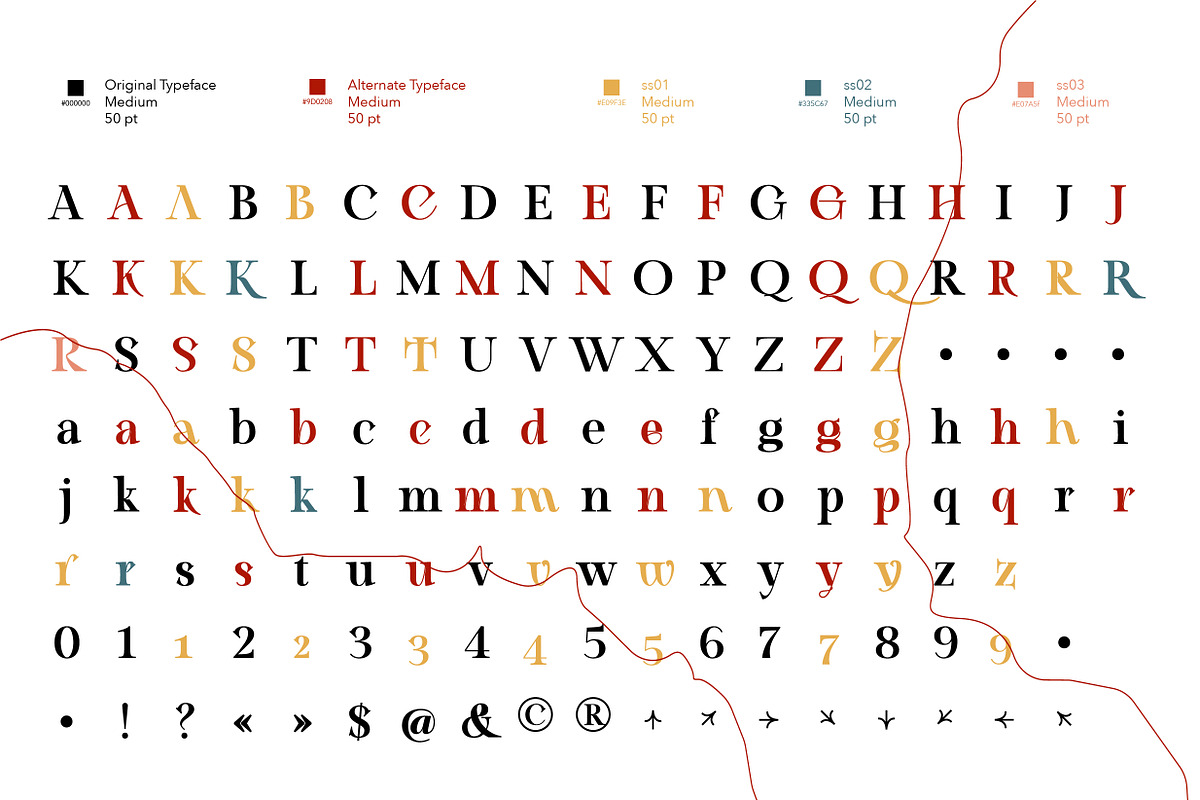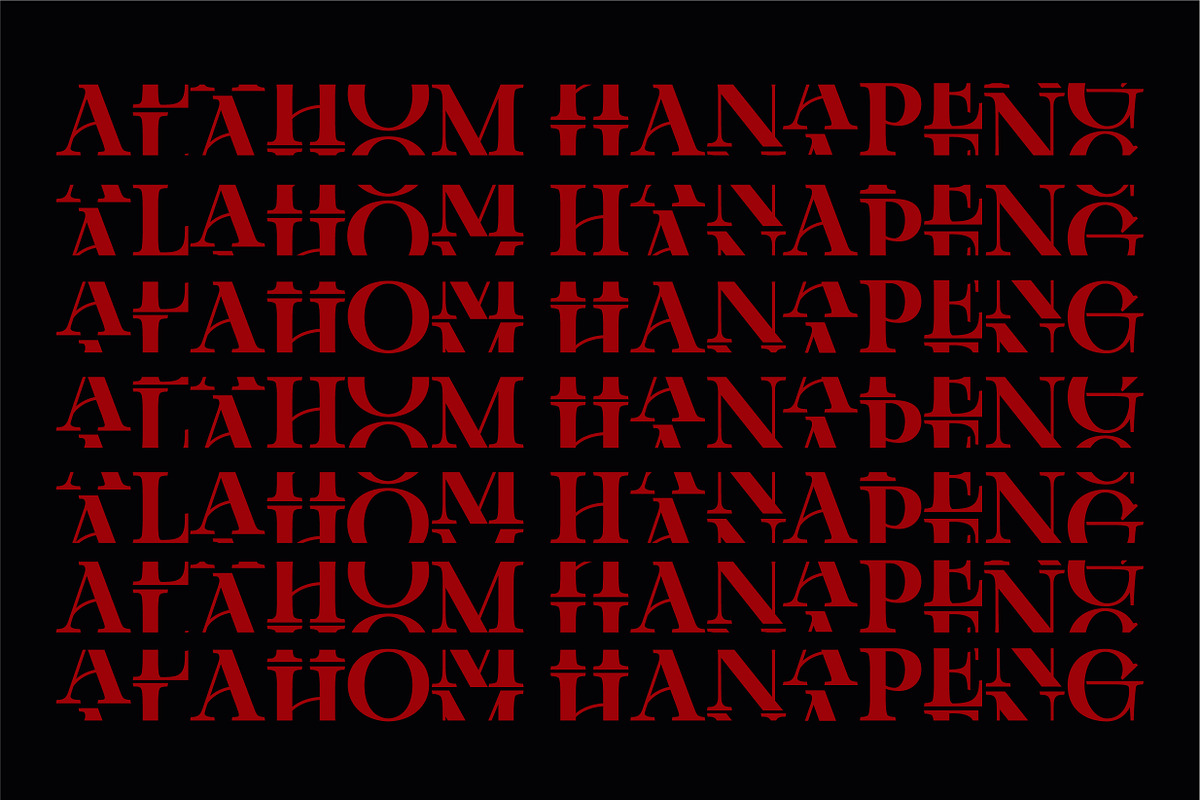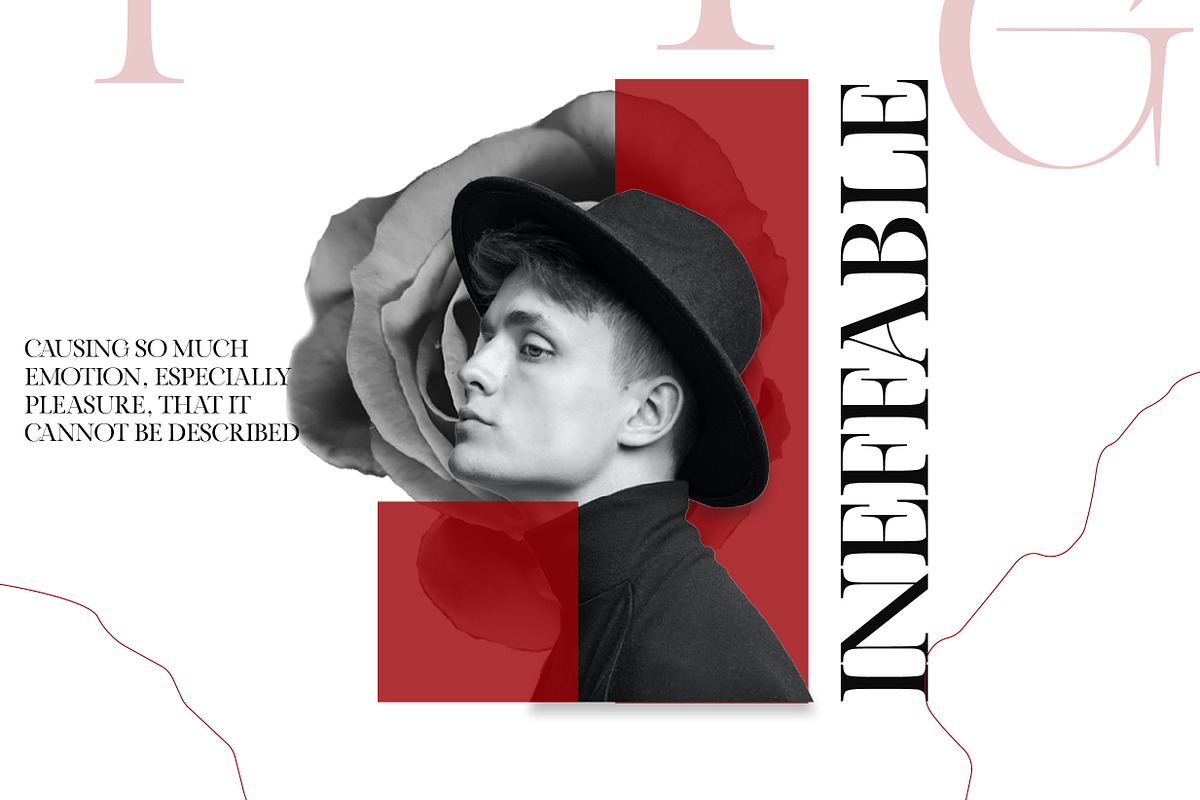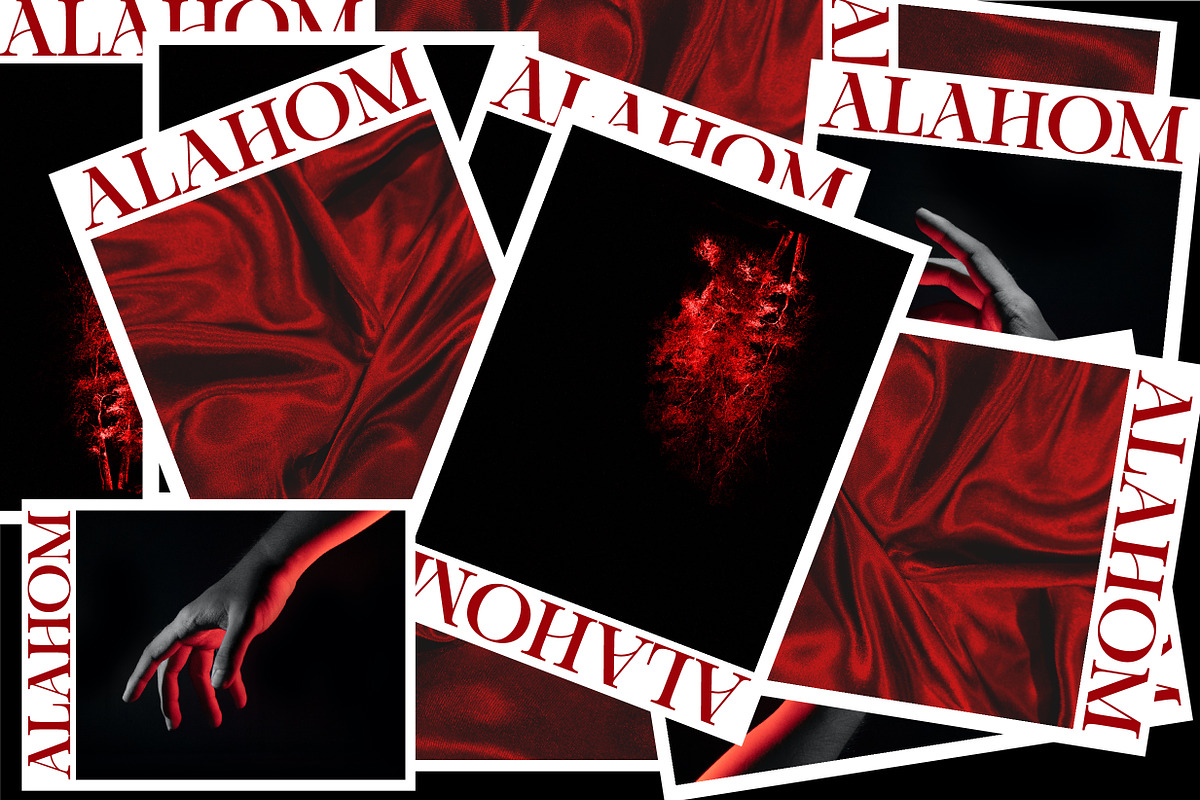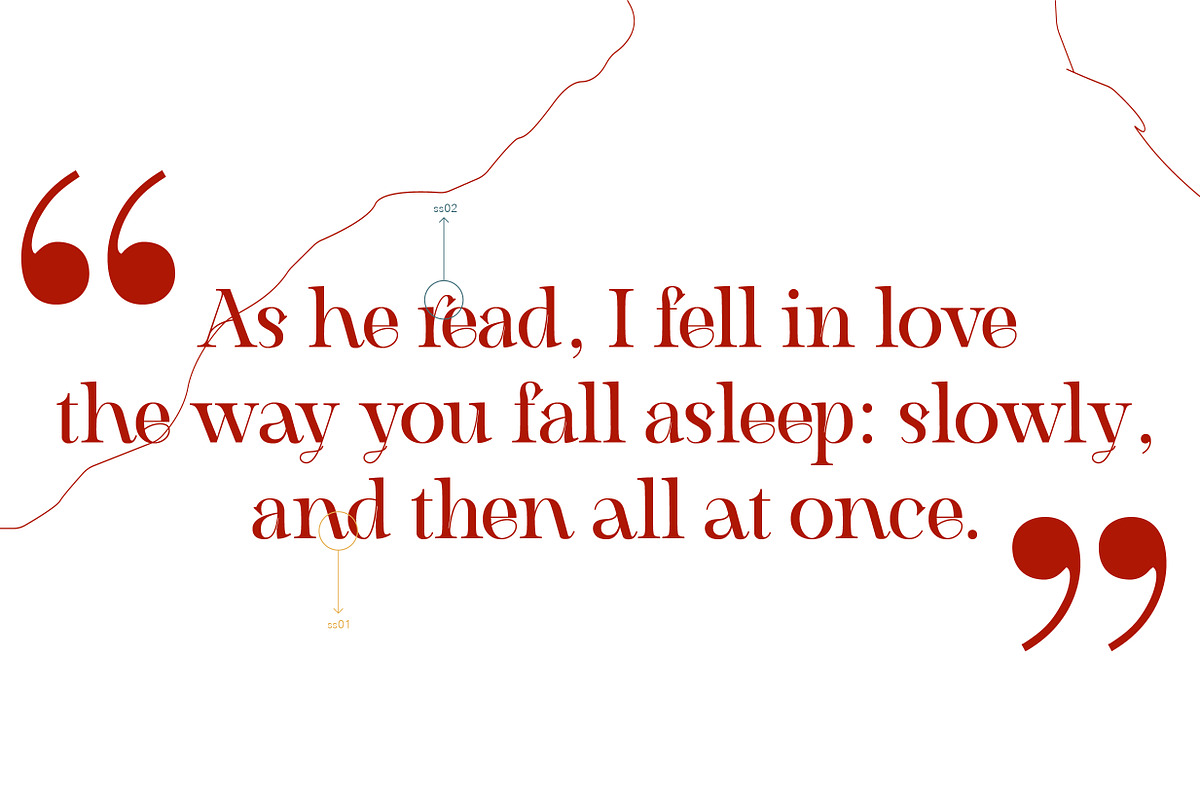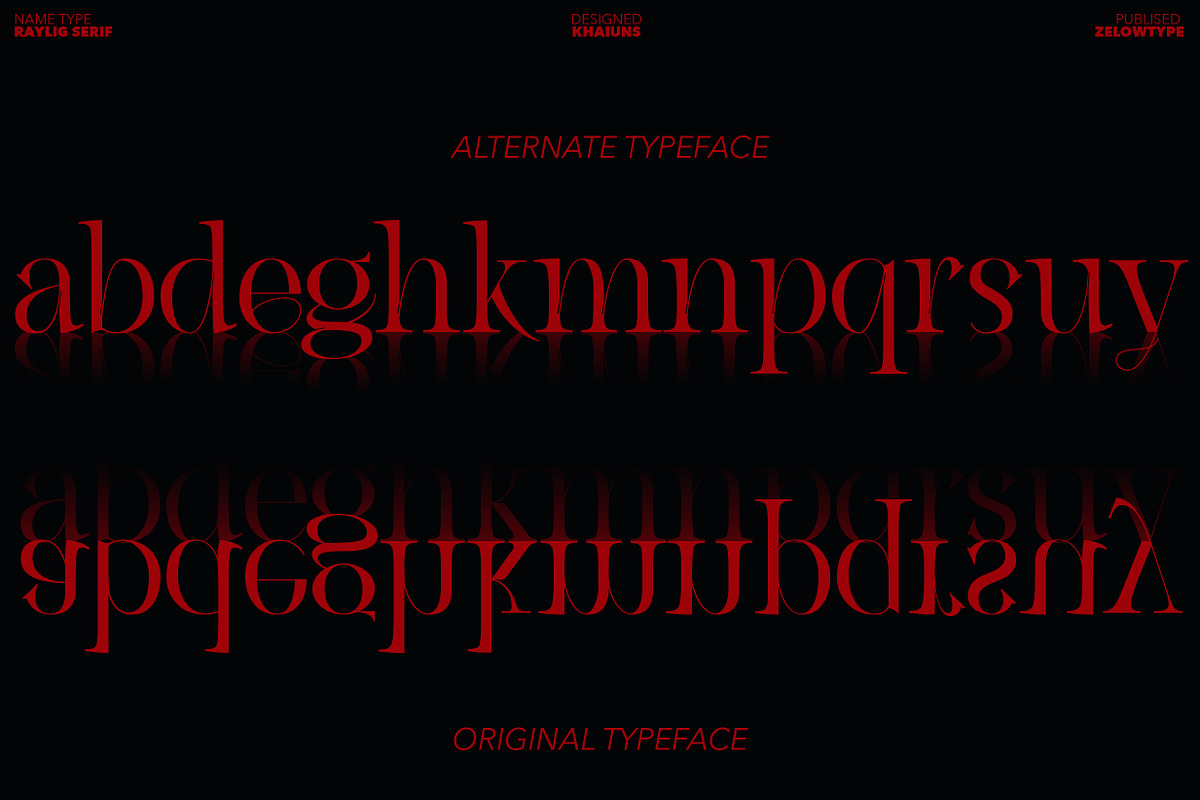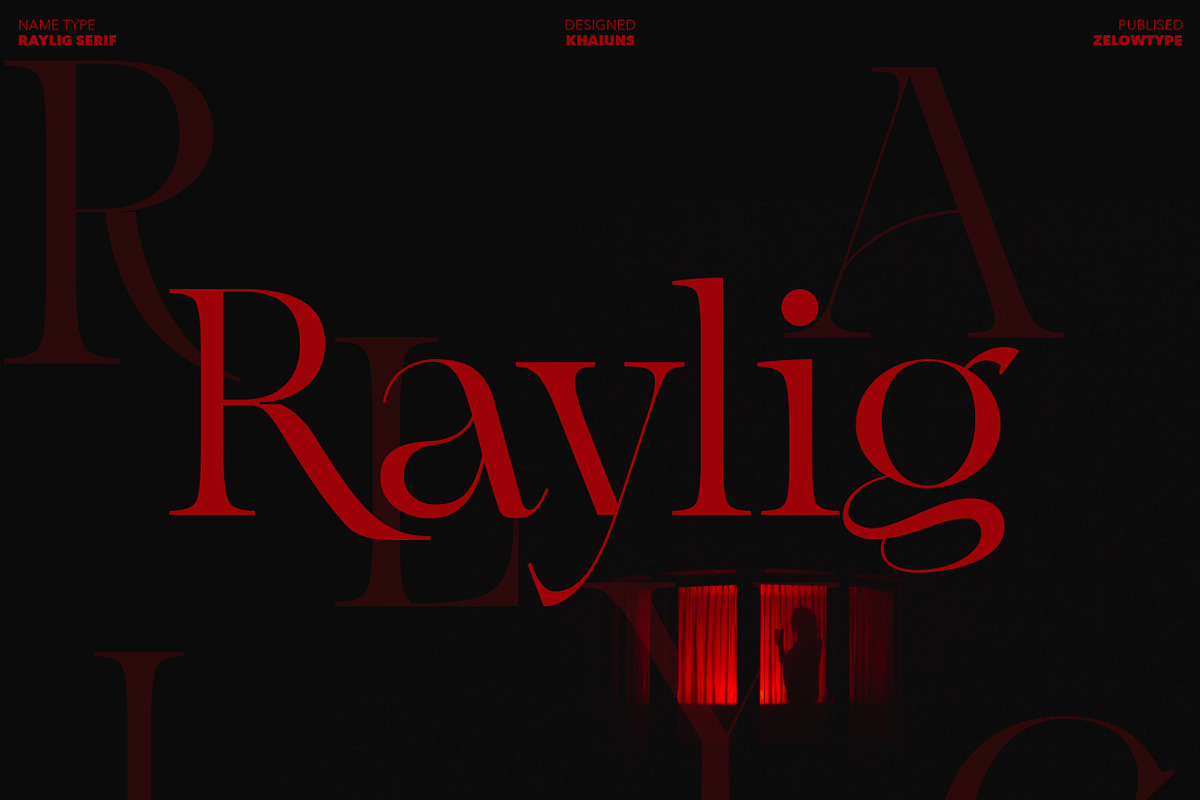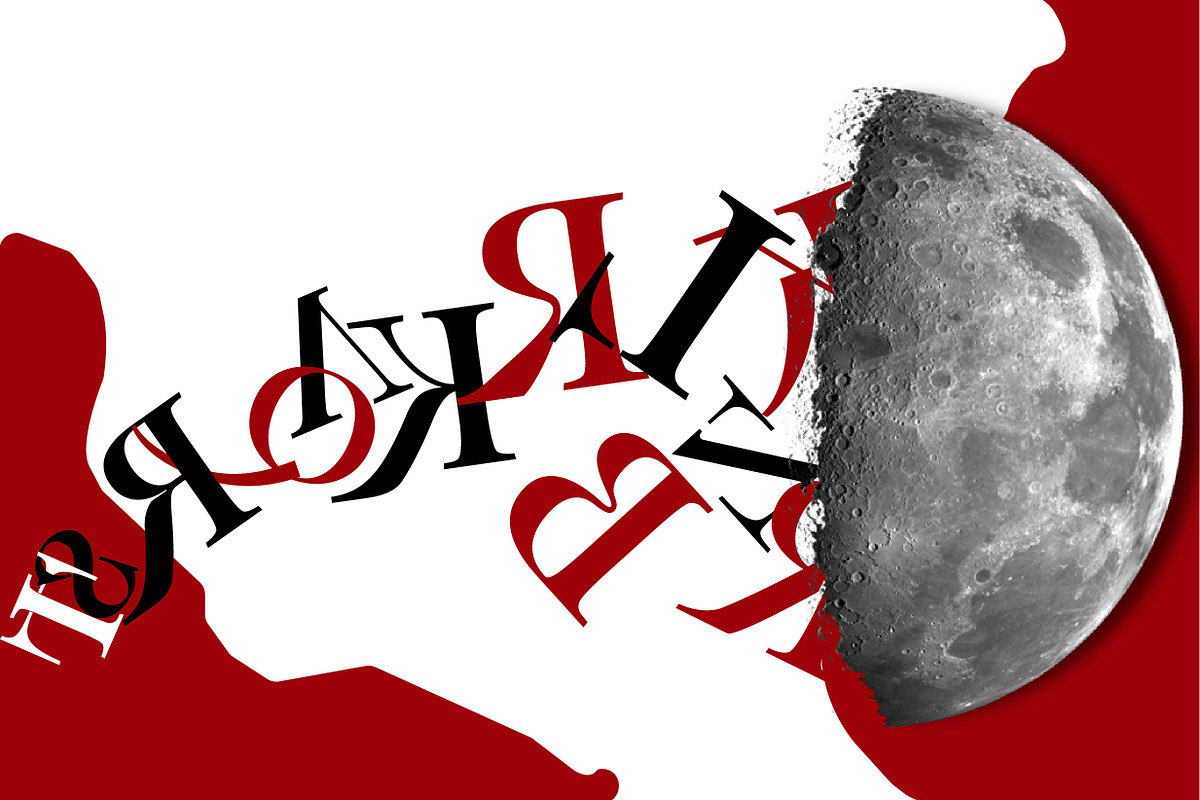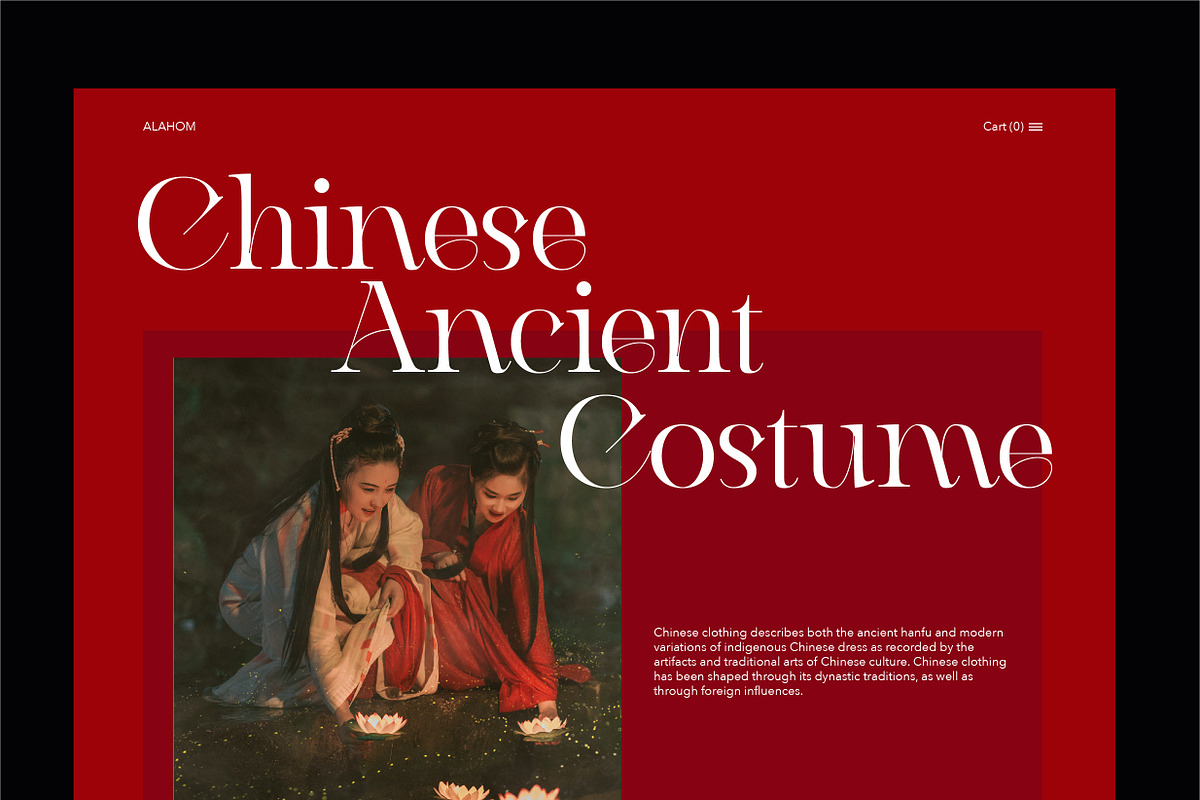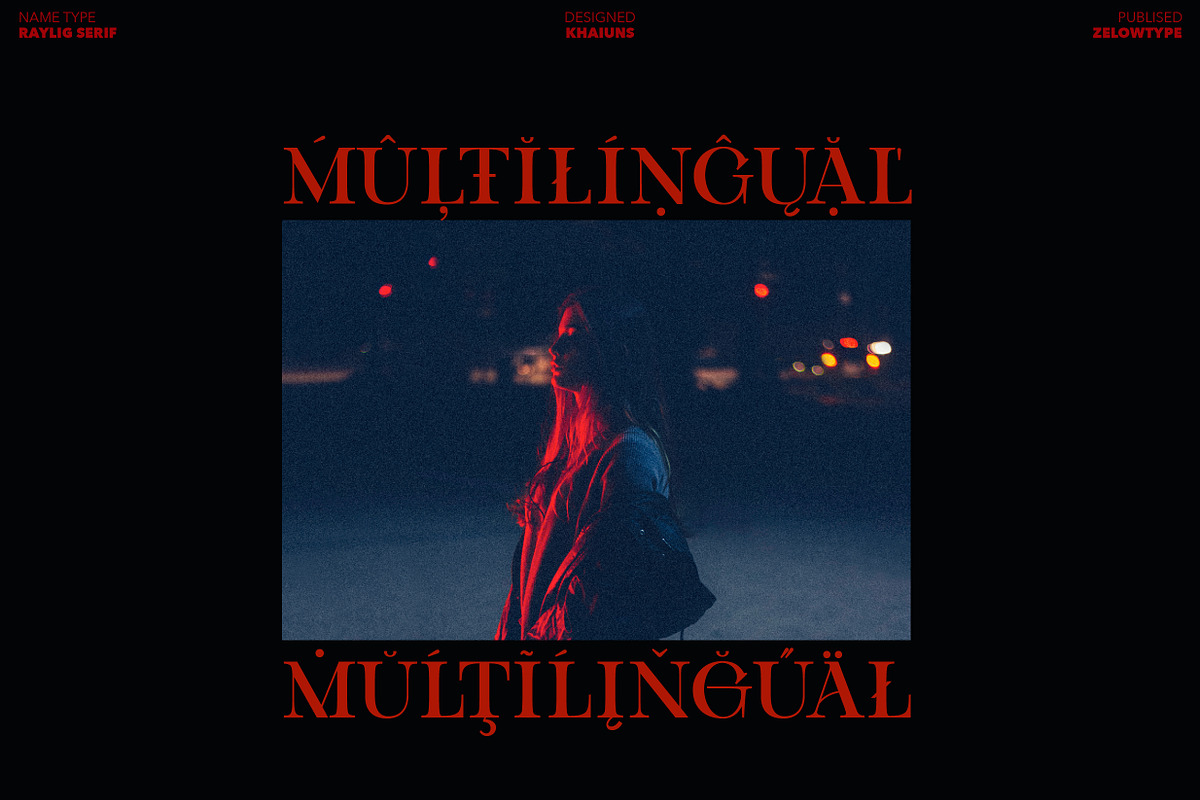
Raylig - Classic Serif
Raylig is a graceful serif but full of energy, Raylig is an experimental project full of selfishness in it, this project was designed by khaiuns in May 2021, he made it himself so it took about 4 months.
Raylig is a desire to present the perfect font for your wide variety of projects so that this type of font can be selected for branding, especially in the UI / UX industry, also suitable for typographic layout for magazines, posters, books, etc.
With hard work and spending a lot of time, comes the Raylig Serif font that has interesting things, such as:
- 10 styles: 5 Original, 5 Alternative
- 650 glyphs in each style
- Support for more than 190+ languages: Expanded Latin, and many other languages
- Each style has 33 really cool alternatives,
- and find something interesting
Raylig also has classic characters, but it is also perfect for your modern design, you can see it on display, such as in thin body size (light), Raylig makes a neutral impression, but when the size is getting bigger (Bold), users are taken on a fun search to find interesting movements, graphic peculiarities, and unusual solutions. All letter patterns are perfectly adjusted.